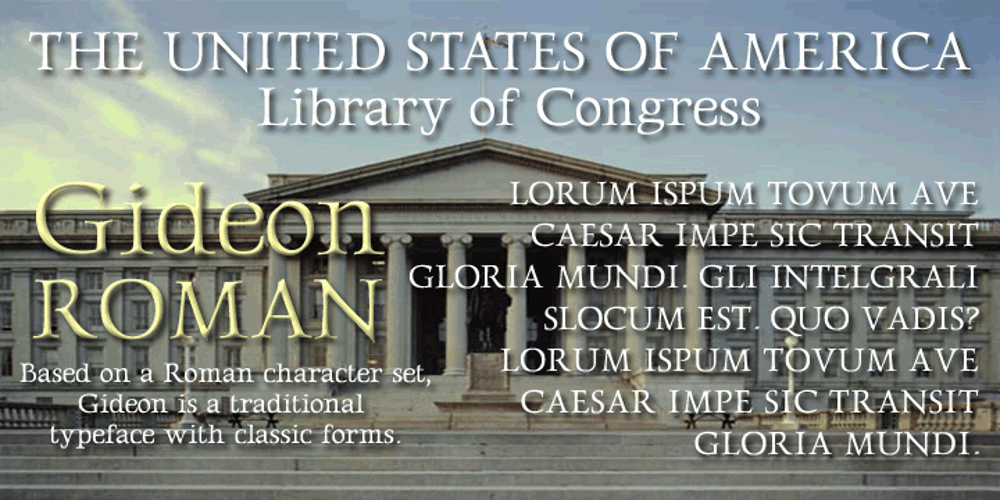
Gideon
Gideon font
Gideon Font Family was designed by Rob Leuschke and published by TypeSETit. Gideon contains 1 styles and family package options. Based on a Roman character set, Gideon is a traditional typeface with classic forms. Perfect for uses from invitations, greeting cards and menus, to display advertising. The upper case letters have a tradition calligraphic feel that adds warmth and sophistication to text while the legibility allows for larger blocks of copy to be easily read.